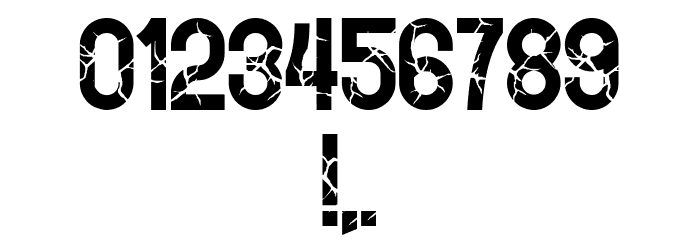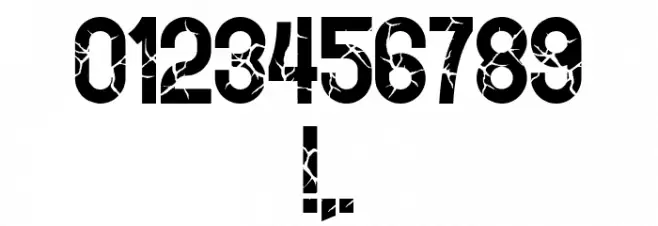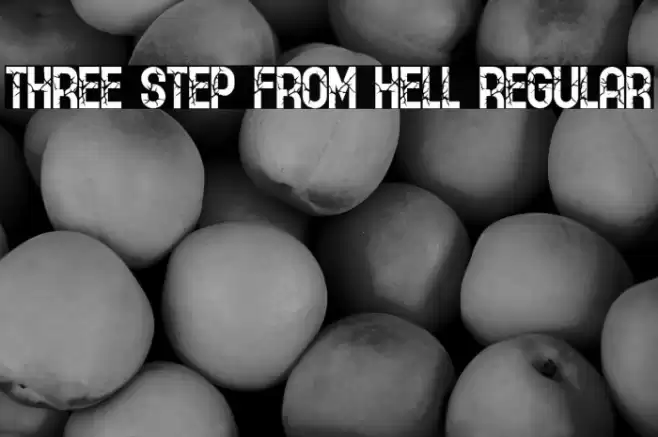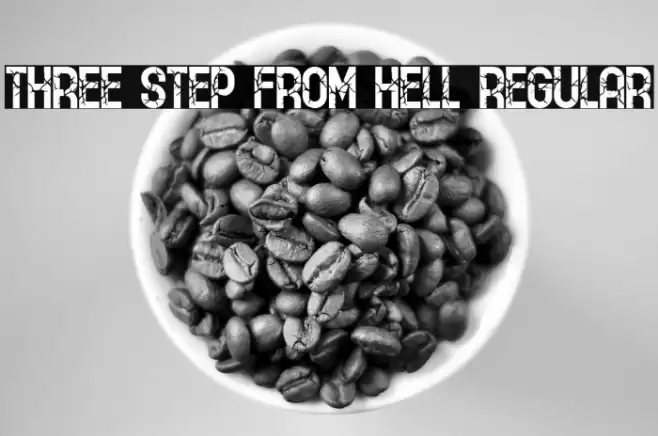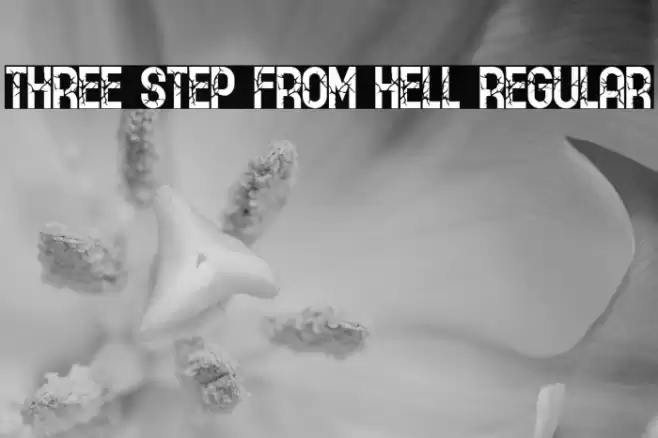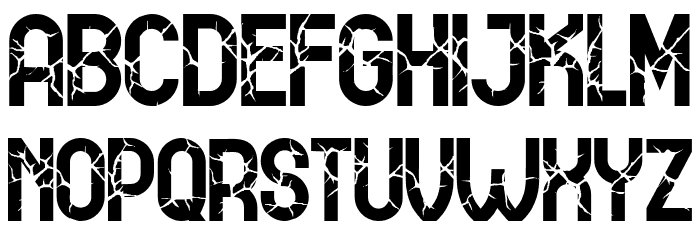
THREE STEP FROM HELL Regular Font
THREE STEP FROM HELL Regular Description
This font features a bold and striking design with a cracked, fragmented appearance that gives it a distressed, edgy look. The characters are uppercase, with a consistent width and height, creating a uniform and cohesive style. The font's unique texture makes it stand out, adding a dramatic flair to any design. The numbers and special characters maintain the same cracked aesthetic, ensuring a seamless integration across different text elements. This font is ideal for projects that require a bold statement or a gritty, urban feel.
| Proposed Projects | Ideal for album covers, posters, video game titles, and any project needing a dramatic, gritty aesthetic. |